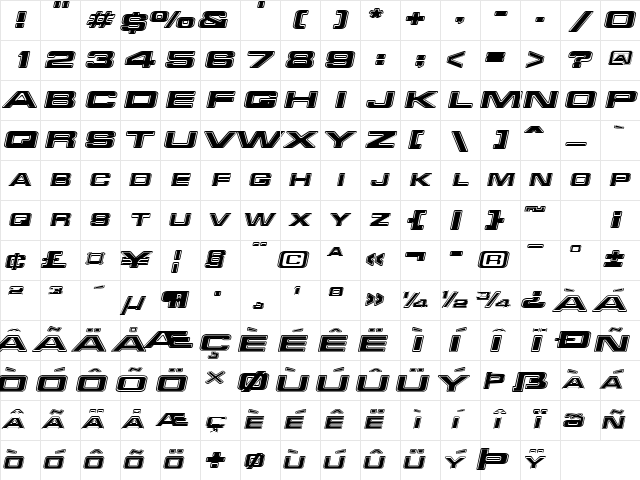
RedAlertExtended Italic
Complete RedAlertExtended Italic glyph index. Displaying only characters natively supported by RedAlertExtended Italic font.
Design Context for RedAlertExtended
RedAlertExtended is a composed and adaptable typeface that performs quietly and consistently across a wide range of design contexts. The slanted form adds forward momentum and visual energy.